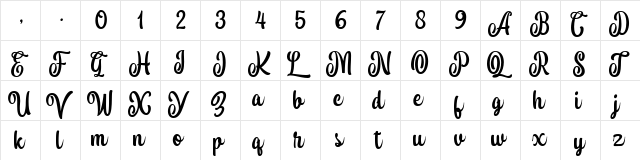
Arucard Regular
Design Context for Arucard Typeface
Arucard is a composed and adaptable typeface that performs quietly and consistently across a wide range of design contexts.